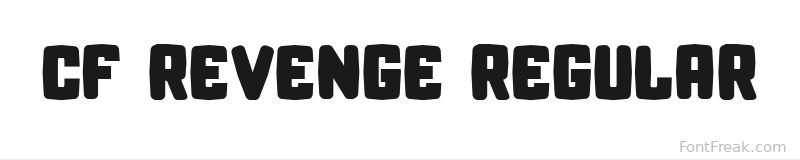
CF Revenge Regular
About CF Revenge Regular
CF Revenge Regular is a striking display font designed by Cloutierfontes, showcasing a bold and modern aesthetic. This sans-serif typeface features a strong stroke weight and minimal contrast, giving it a robust and impactful appearance. The letters are slightly condensed, which enhances readability while also providing a sense of urgency and strength. The font's clean lines and geometric shapes are complemented by subtle curves, making it both visually appealing and versatile for various design applications.
This font is perfect for a variety of use cases. Its bold character makes it an excellent choice for movie posters, where dramatic titles can capture the audience's attention. Additionally, CF Revenge Regular works well for branding projects, particularly for small businesses seeking to convey a contemporary edge. It can also be employed in promotional materials, such as flyers and banners, where a strong visual presence is required. Other ideal applications include merchandise designs, where a distinctive typeface can help products stand out in a crowded marketplace.
What sets CF Revenge Regular apart is its ability to blend modernity with functionality. The font’s bold design ensures that it leaves a lasting impression while maintaining clarity in communication. For those seeking a fresh and engaging typography solution, the CF Revenge Regular font free download is an excellent choice that will enhance any creative endeavor.